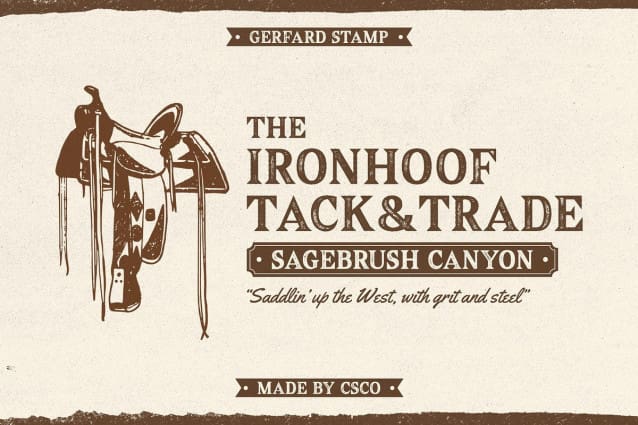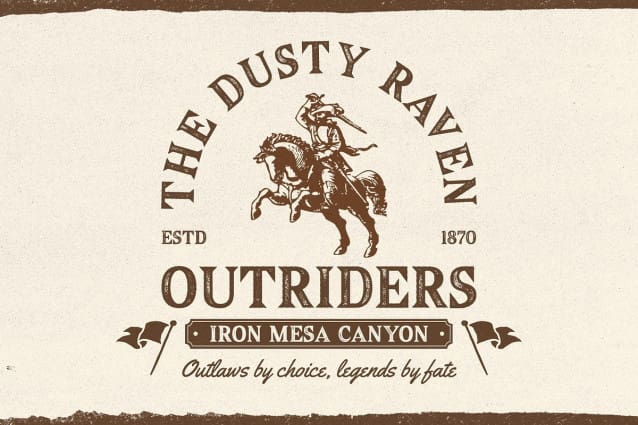
Gerfard Stamp Font
Gerfard Stamp Font is a bold classic serif font, featuring a distinctive stamp effect that adds depth and texture. The fusion of traditional serif design and rugged, stamped details creates a vintage character perfect for making a lasting impression.
Bold Lines for Strong Presence With its strong, refined lines, Gerfard Stamp conveys authority and elegance. The bold structure is ideal for creating impactful branding or packaging, where the design demands both sophistication and attention.
Vintage Texture for Timeless Appeal The rugged stamp texture adds a layer of authenticity to Gerfard Stamp, giving it a vintage, weathered look. This makes the font perfect for designs that aim to evoke nostalgia or a sense of history, such as formal invitations or heritage-inspired branding.
Versatile for Various Applications Gerfard Stamp’s combination of classic serif elements and unique stamp texture makes it a versatile choice for a range of design projects. Whether used for logos, posters, or editorial layouts, this font stands out as a bold statement of elegance and tradition.